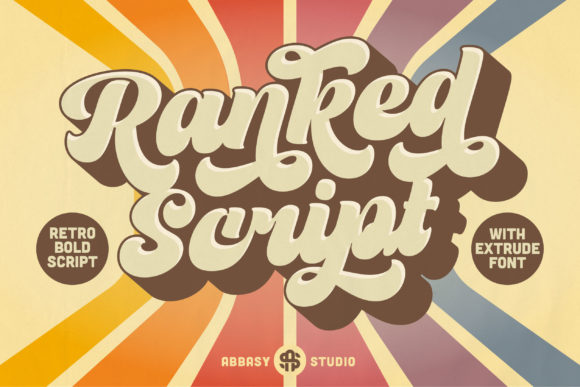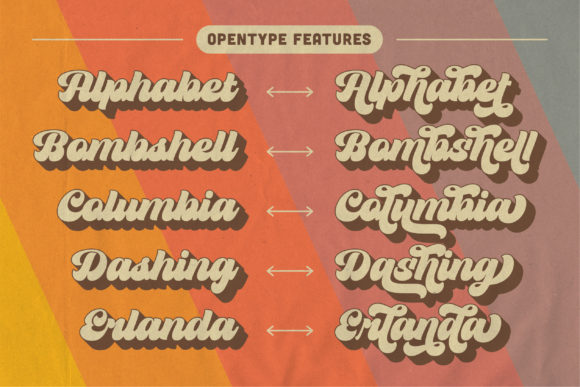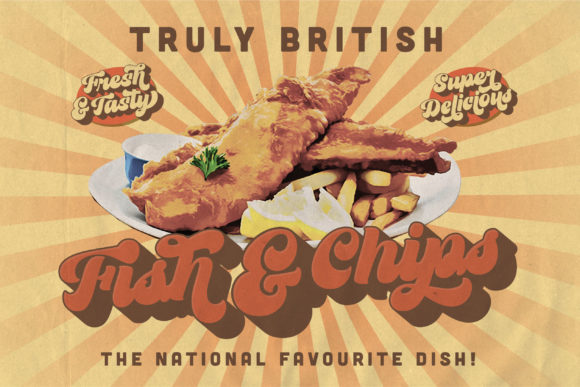
About Ranked Script Font
Ranked Script is a gorgeous and bold handwritten font, crafted to give your headlines and logotype projects a retro touch. This font reads as strong, confident, and dynamic and can add tons of nostalgic character to your designs.